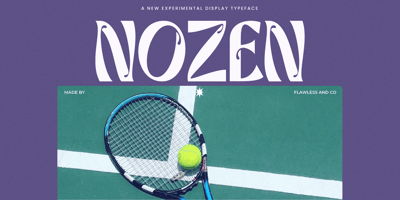
Nozen
Nozen font
Nozen Font Family was designed by Achmad Yani and published by Flawlessandco. Nozen contains 1 styles and family package options. Introducing “Nozen” – An Experimental Display Typeface. Dive into the realm of experimentation and creativity with “Nozen,” a captivating display typeface that defies convention and redefines the boundaries of typography.There’s some connected letters and some alternates that suitable for any graphic designs such as branding materials, t-shirt, print, business cards, logo, poster, t-shirt, photography, quotes .etcThis font support for some multilingual. Also contains uppercase A-Z and lowercase a-z, alternate character, numbers 0-9, and some punctuation.If you need help, just write me! Thanks so much for checking out my shop!